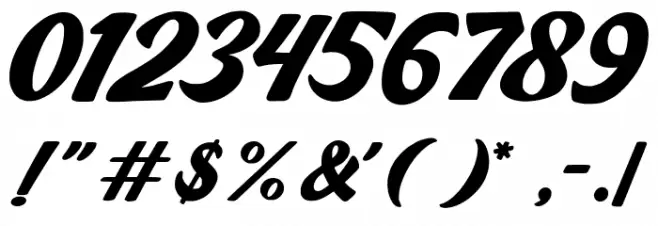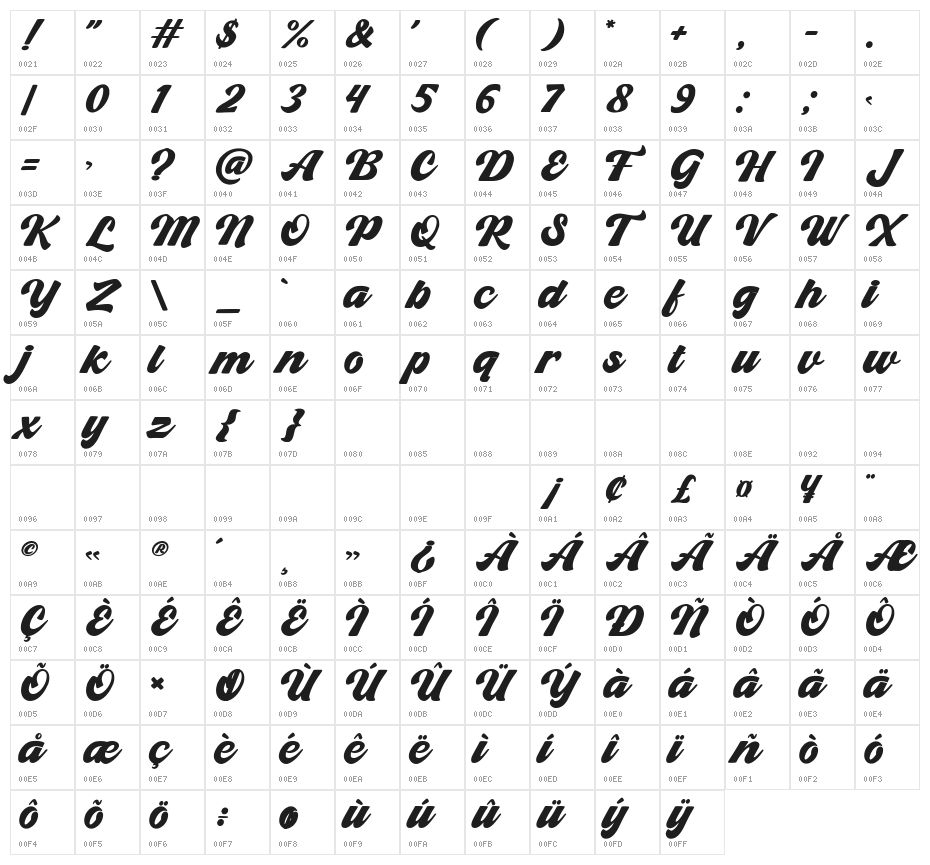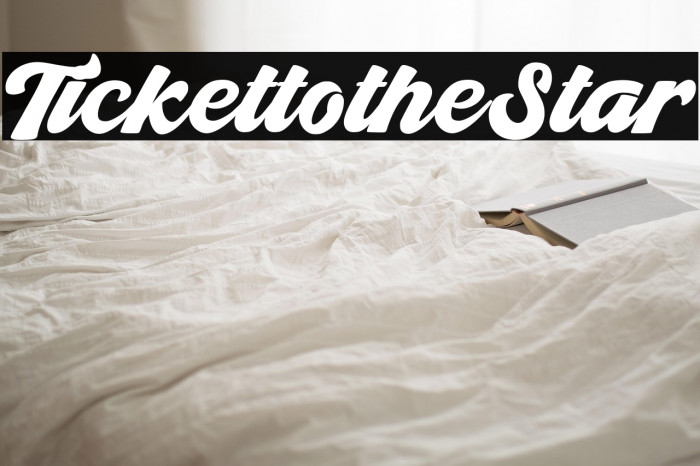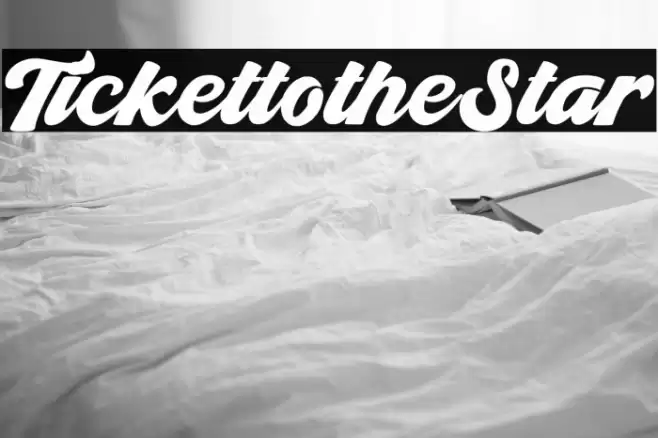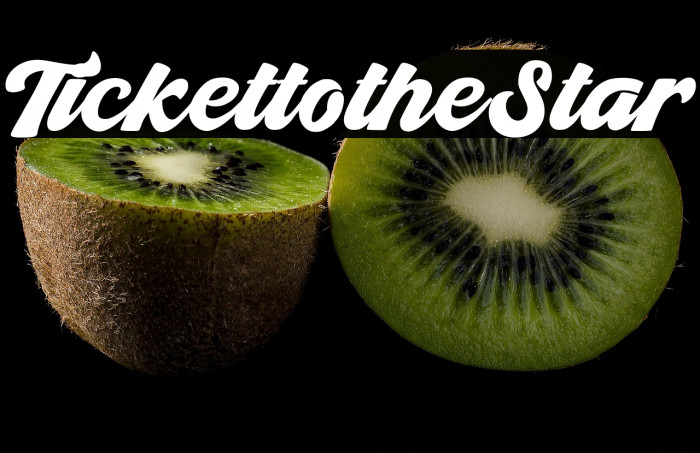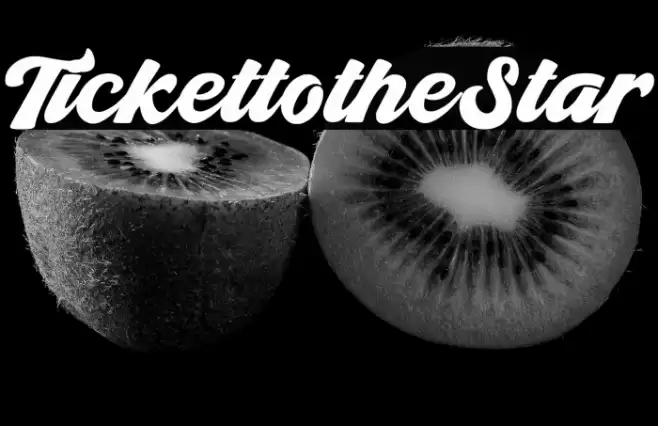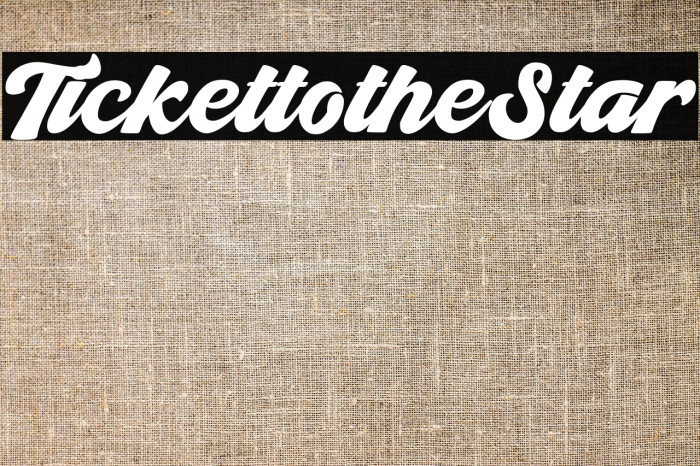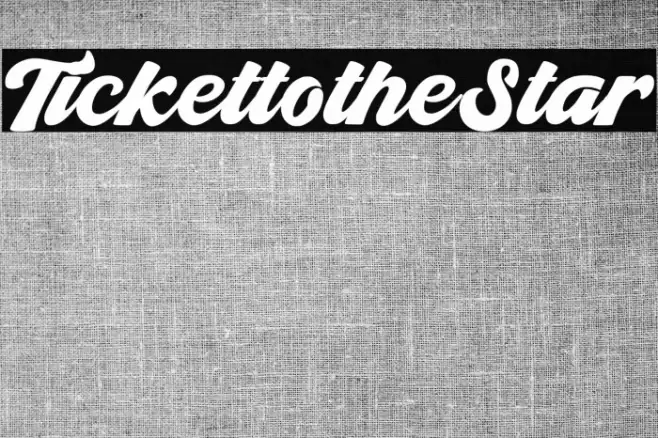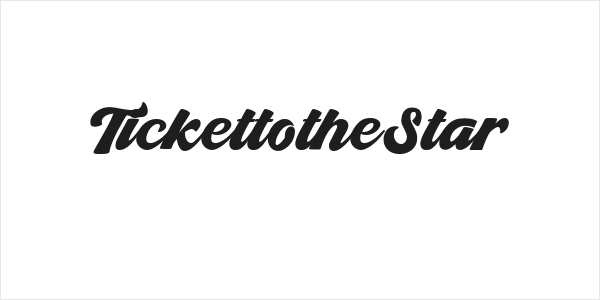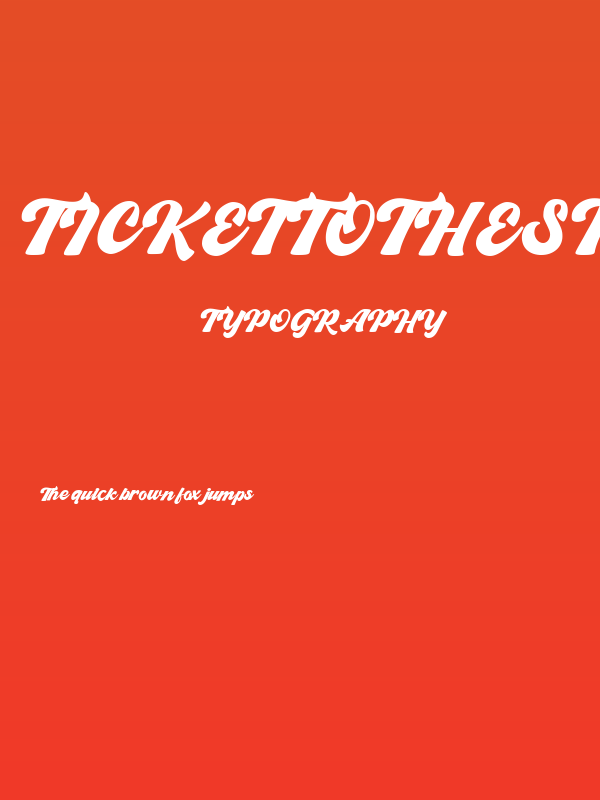
TickettotheStar Font
TickettotheStar Description
This font features a bold, cursive style with a strong emphasis on fluidity and elegance. The characters are interconnected, creating a seamless flow that is both dynamic and visually appealing. The uppercase letters are slightly larger and more pronounced, while the lowercase letters maintain a consistent and harmonious rhythm. The numerals are bold and rounded, complementing the overall cursive aesthetic. Special characters are designed with the same flowing style, ensuring uniformity across all glyphs. The font's thick strokes and smooth curves make it ideal for creating impactful and stylish designs.